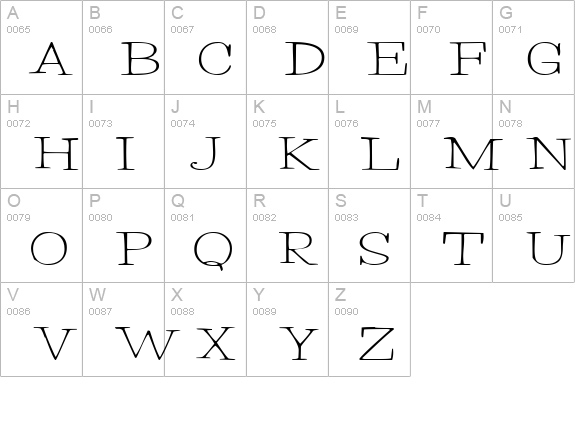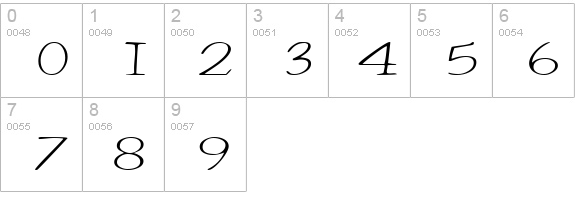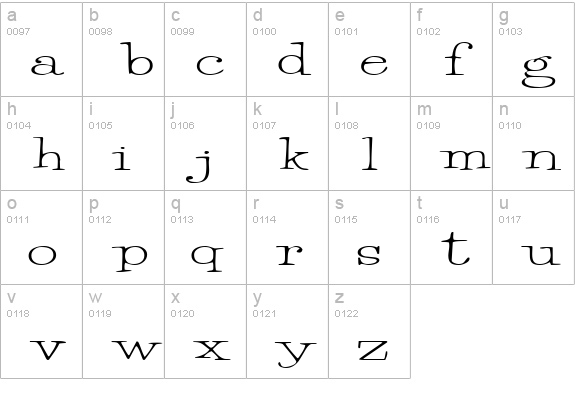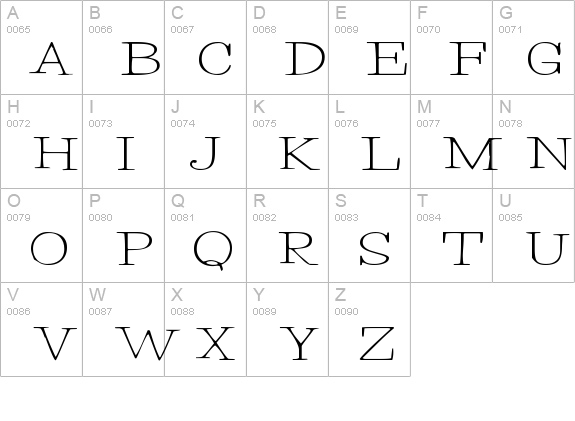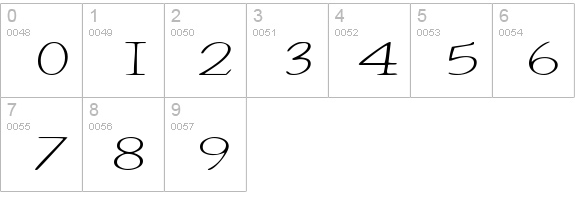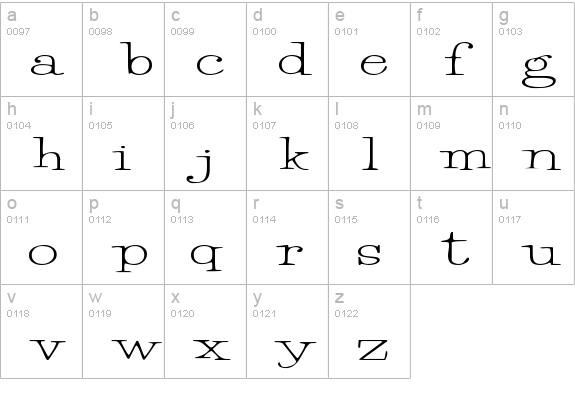
ReigleSSK Font Details
ReigleSSK font is a stunning display font that exudes elegance and sophistication. Its sleek and modern design makes it perfect for a wide range of creative projects, from logos and branding to website headers and social media graphics. One of the best features of ReigleSSK font is that it is free! Yes, you read that right. This incredible font is freely available to download at FontsMarket.com. Whether you're a professional designer or a beginner just starting out, ReigleSSK font offers you the opportunity to elevate your designs without breaking the bank. With its clean lines and well-balanced letterforms, ReigleSSK font brings a sense of professionalism and refinement to any project. The carefully crafted curves and sharp edges make each character stand out, capturing attention and leaving a lasting impression. ReigleSSK font is not only visually appealing but also highly versatile. It comes in multiple weights and styles, allowing you to experiment and find the perfect fit for your design needs. Whether you're aiming for a minimalist look or a bold statement, ReigleSSK font has got you covered. In addition to its aesthetic appeal, ReigleSSK font is also highly legible, ensuring that your message is conveyed clearly and effectively. Its well-defined letterforms make it easy to read, even at small sizes, ensuring that your designs are both visually striking and easily understandable. So why wait? Take advantage of the opportunity to enhance your creative projects with the exquisite ReigleSSK font. Download it for free at FontsMarket.com and unlock a world of design possibilities. Whether you're designing for print or digital, ReigleSSK font will surely make your work shine. Don't miss out on this incredible font – get it now and let your creativity soar!